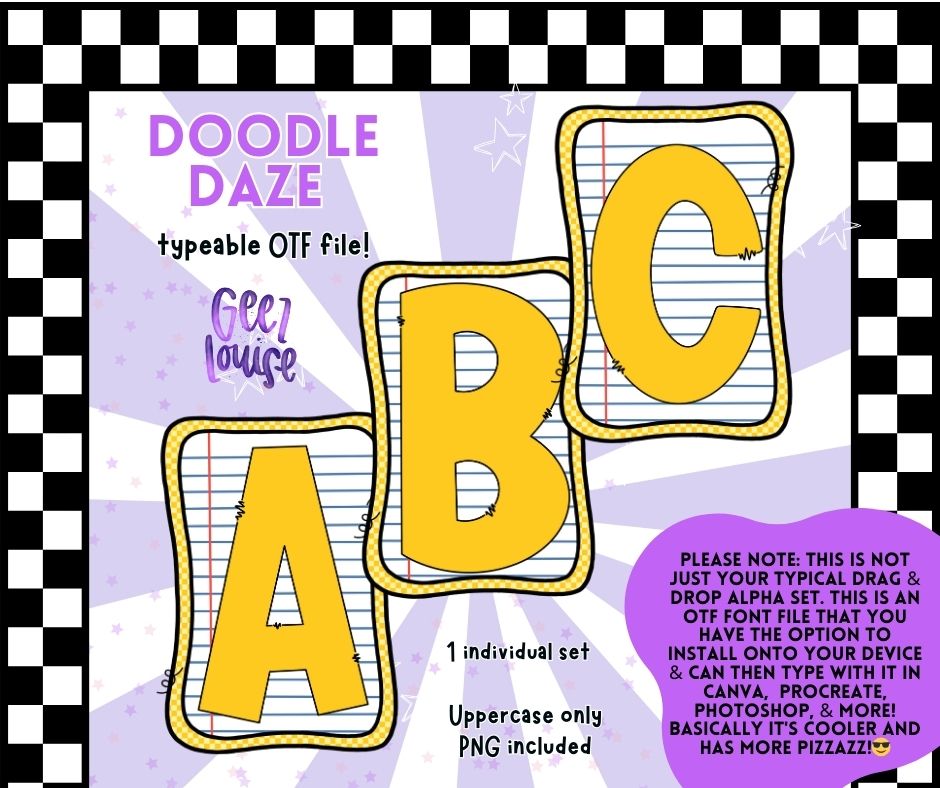
doodle Daze OTF Font + PNG Alpha Set
Add a pop of playful nostalgia to your designs with Doodle Daze! This quirky uppercase-only alpha is inspired by good ol’ notebook doodles, complete with a yellow pencil-style fill, blue ruled lines, and that classic classroom feel. Use it to give your back-to-school designs, teacher gifts, or everyday lettering projects a bold, fun twist.